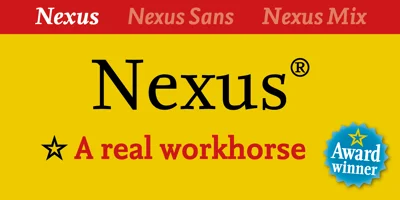
Nexus Serif Pro Font
Nexus Serif Pro Font excels in premium book publishing, high-end magazine layouts, corporate annual reports, academic journal publications, luxury brand communications, financial institution materials, law firm documentation, and sophisticated editorial designs requiring professional typography excellence.
Nexus Serif Pro Font creates excitement through its perfect synthesis of classical serif traditions and contemporary design innovation that delivers unmatched typographic sophistication. This typeface captivates with its refined letterforms and optimized readability, bringing professional authority while maintaining elegant character that elevates any publication to premium standards.
Nexus Serif Pro Font family encompasses comprehensive professional options: Thin, Light, Regular, Medium, Bold, and Black weights. Additional italic variations, small caps, and extended character sets provide publishers with extensive typographic flexibility for creating sophisticated hierarchical structures and international publishing requirements.
The editorial excellence of Nexus Serif Pro Font makes it indispensable for projects demanding professional publishing standards and typographic sophistication. This versatile typeface seamlessly bridges traditional serif elegance with modern functionality, delivering exceptional performance across both digital screens and high-quality print applications where readability drives reader engagement.
Publishing professionals consistently select Nexus Serif Pro Font for projects requiring authoritative typography and premium presentation. Its classical proportions and contemporary refinement make it perfect for books, magazines, academic publications, and corporate communications where professional credibility and reading comfort are paramount. The font's technical precision ensures optimal performance across all platforms.
Elevate your typography with Nexus Serif Pro Font and experience how this exceptional typeface brings professional publishing excellence and editorial sophistication to every project, creating authoritative communications that engage readers while maintaining the highest standards of typographic craftsmanship and design integrity.